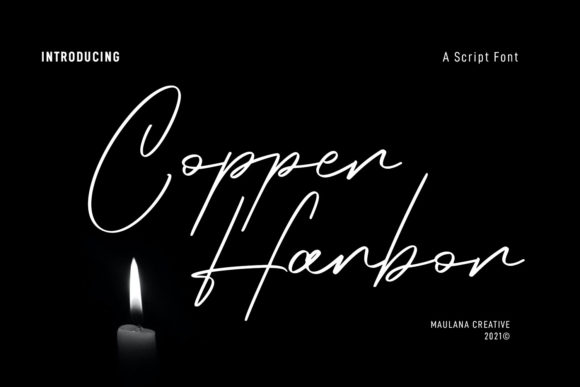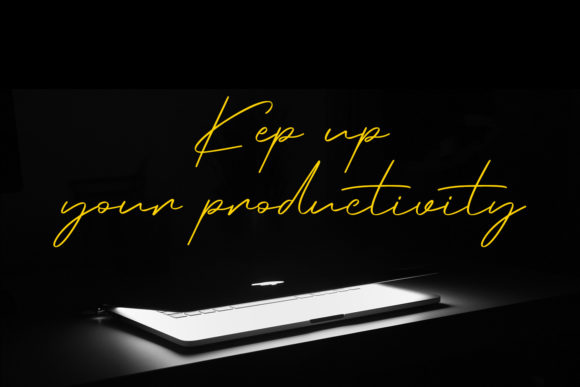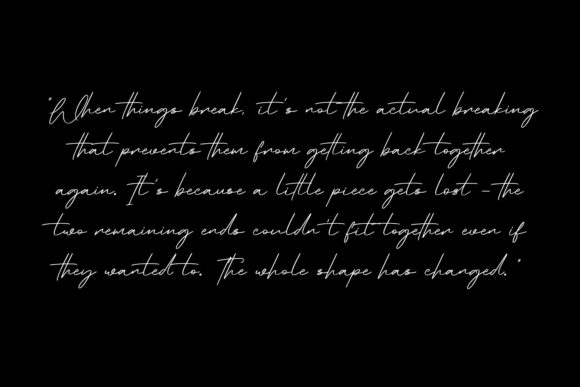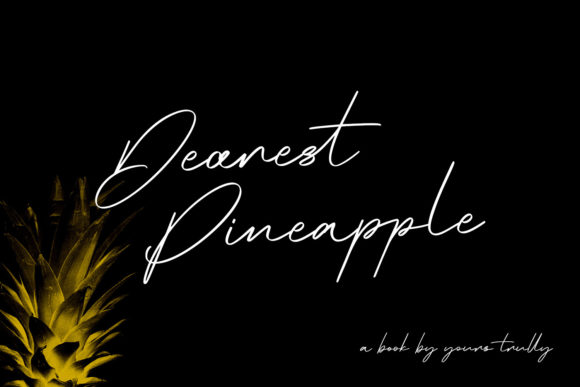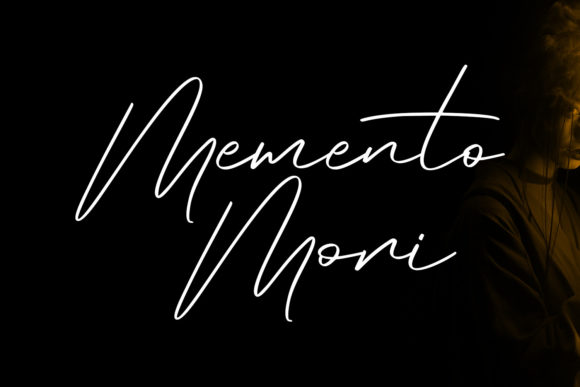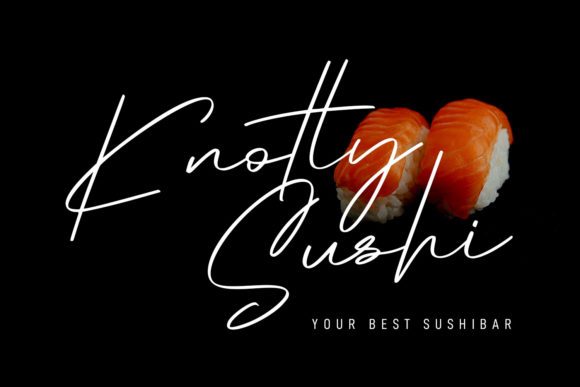
Copper Harbor Script Font
About Copper Harbor Script Font
Copper Harbor Script is a stylish handwritten font. It is the best choice for creating eye catching logos, branding and quotes. Every letter has a unique and beautiful touch, which will make your design come alive!